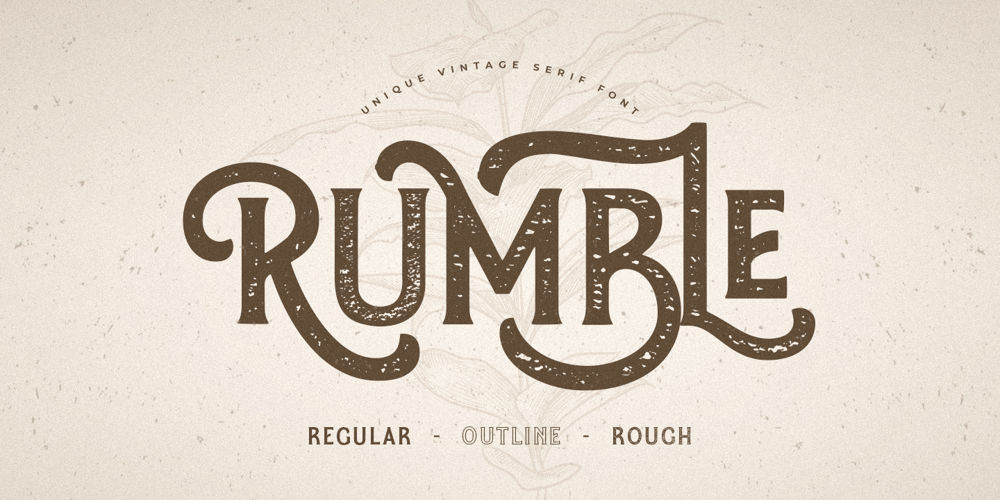
Rumble Style Font Family was designed by Zamroni Hamzah and published by Sensatype Studio. Rumble Style contains 3 styles and family package options. Rumble is Logo Retro Vintage Font, a well-balanced contemporary font with a fancy, unique, and versatile vintage serif font that you can combine to get any variations and unique shapes easily just in seconds with stack it. It is a serif display font with moderate contrast that perfect for branding projects, logo, wedding designs, social media posts, advertisements, product packaging, product designs, label, photography, watermark, invitation, stationery, and any projects, it makes with a high level of legibility.What’s Included: Rumble Regular Rumble Outline Rumble Rough Character set A-Z Uppercase & Lowercase Numerals & Punctuation Accented Characters (West Europe) Stylistic alternates Works on PC & Mac Recommended using Adobe Illustrator or Adobe Photoshop. Wish you enjoy our font and if you have any questions, don’t hesitate to drop message & I’m happy to help :)Show Less